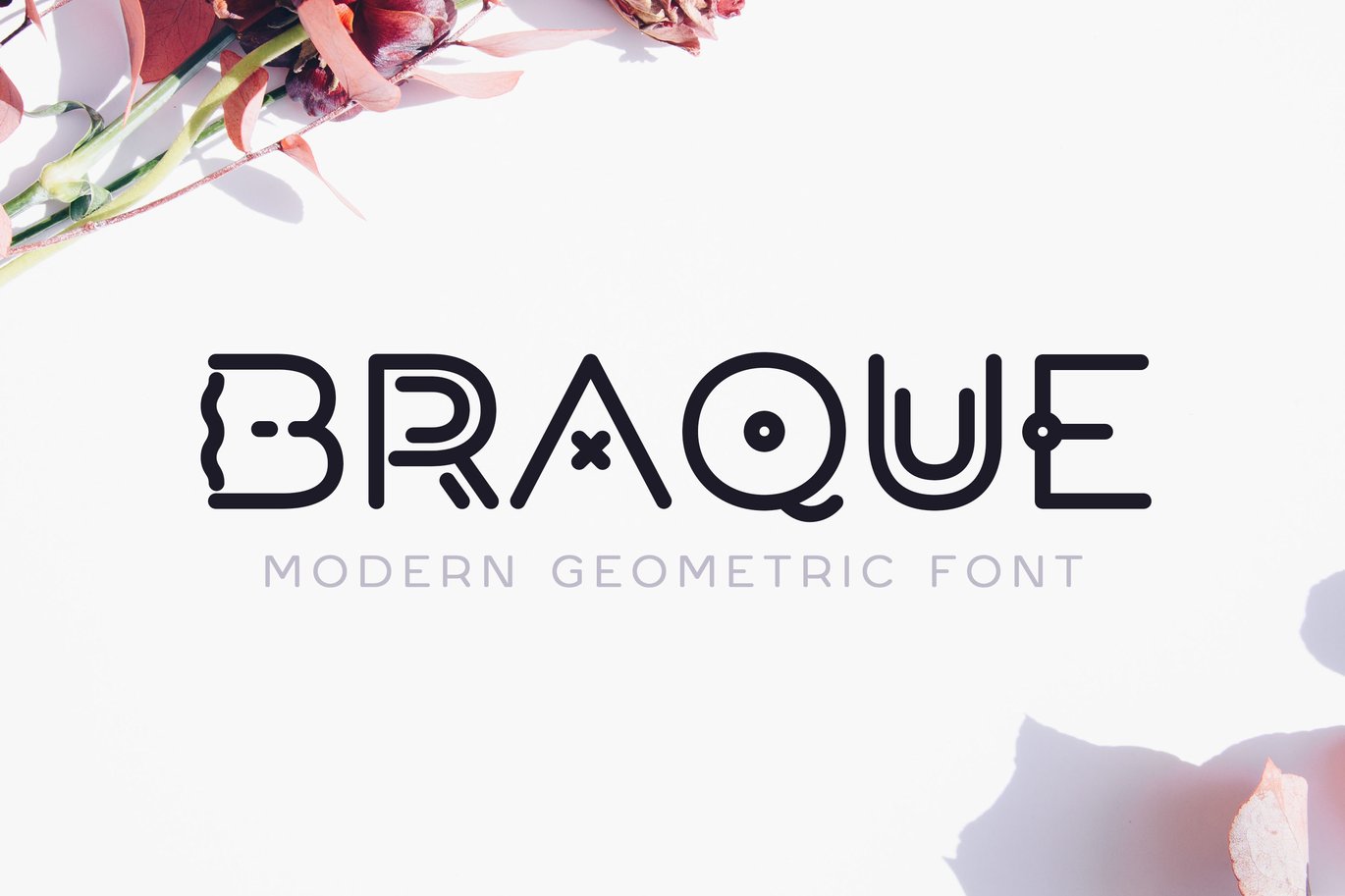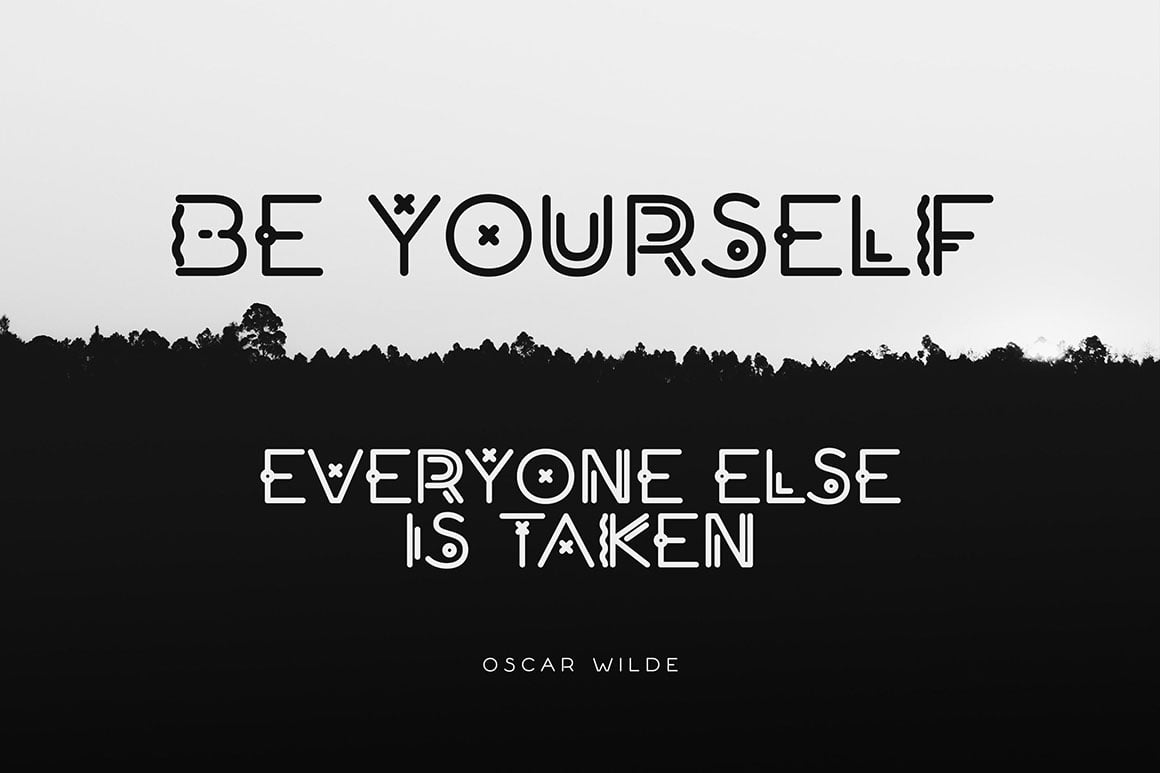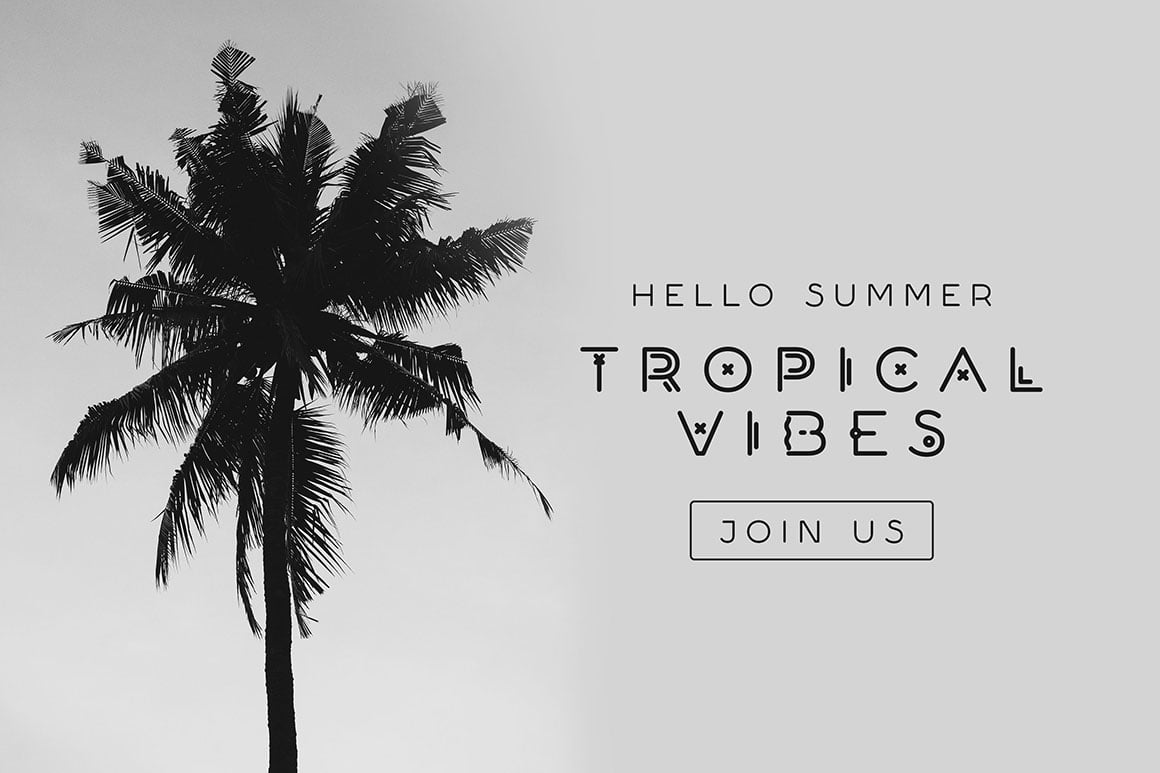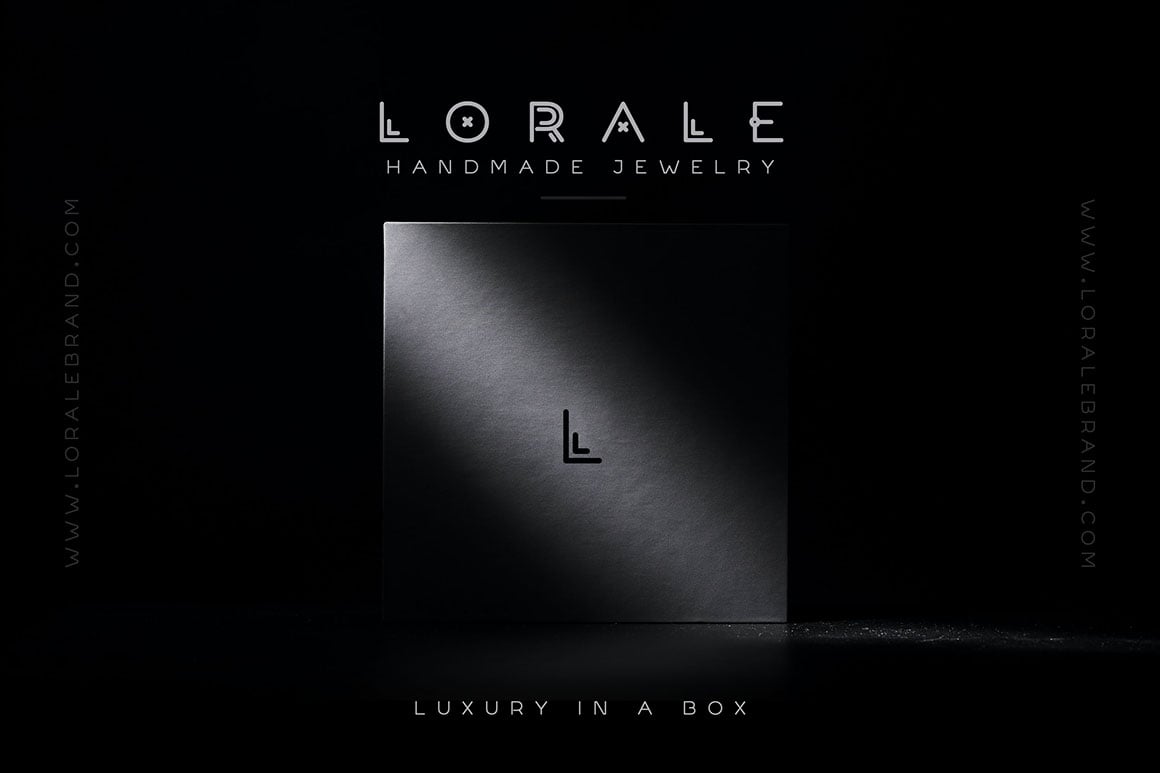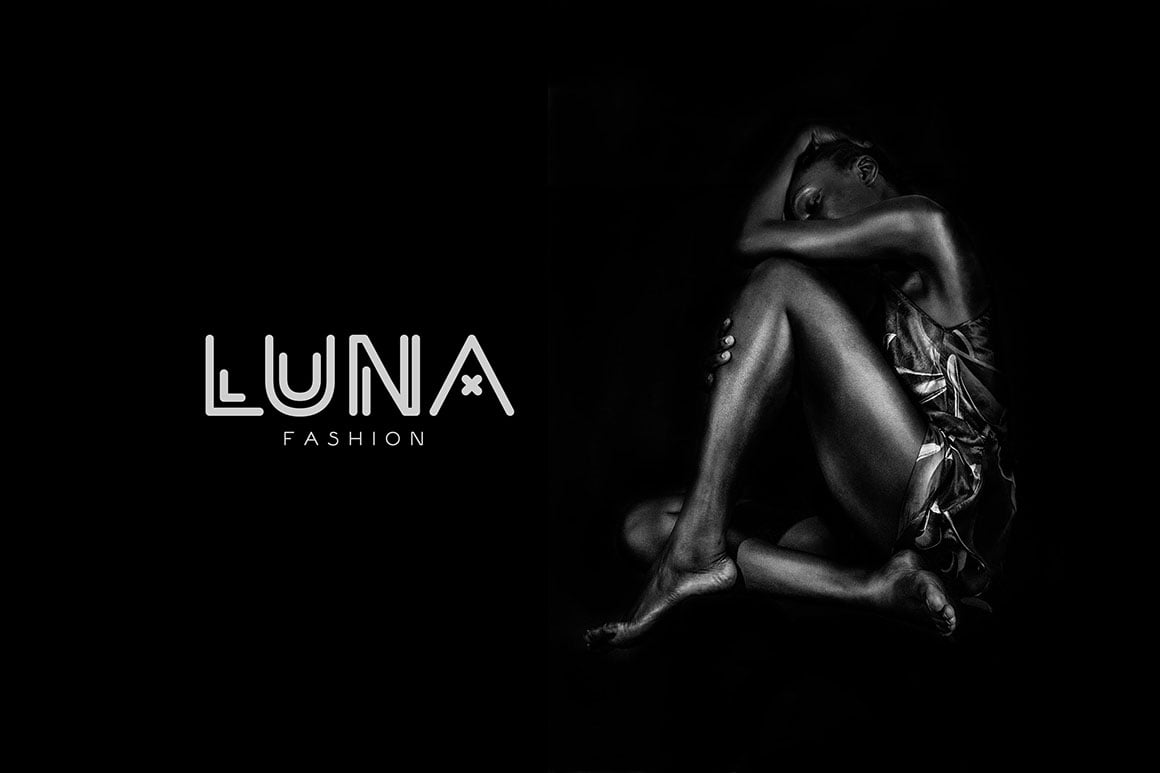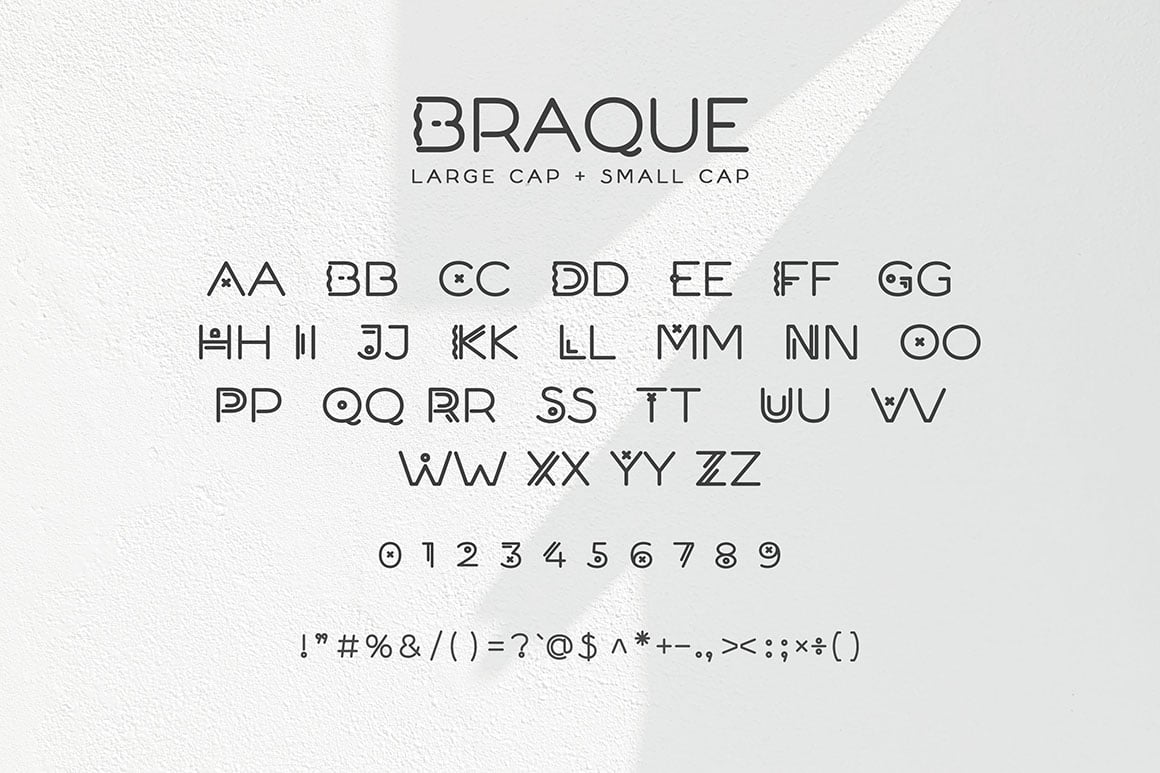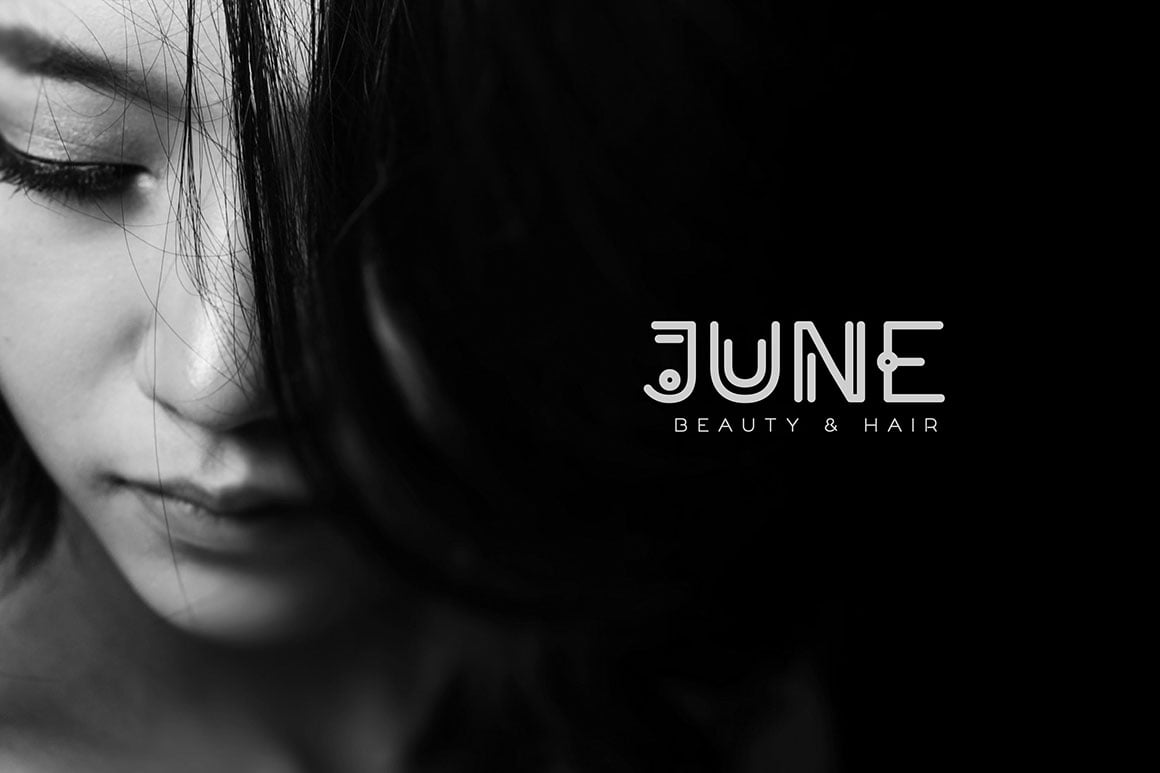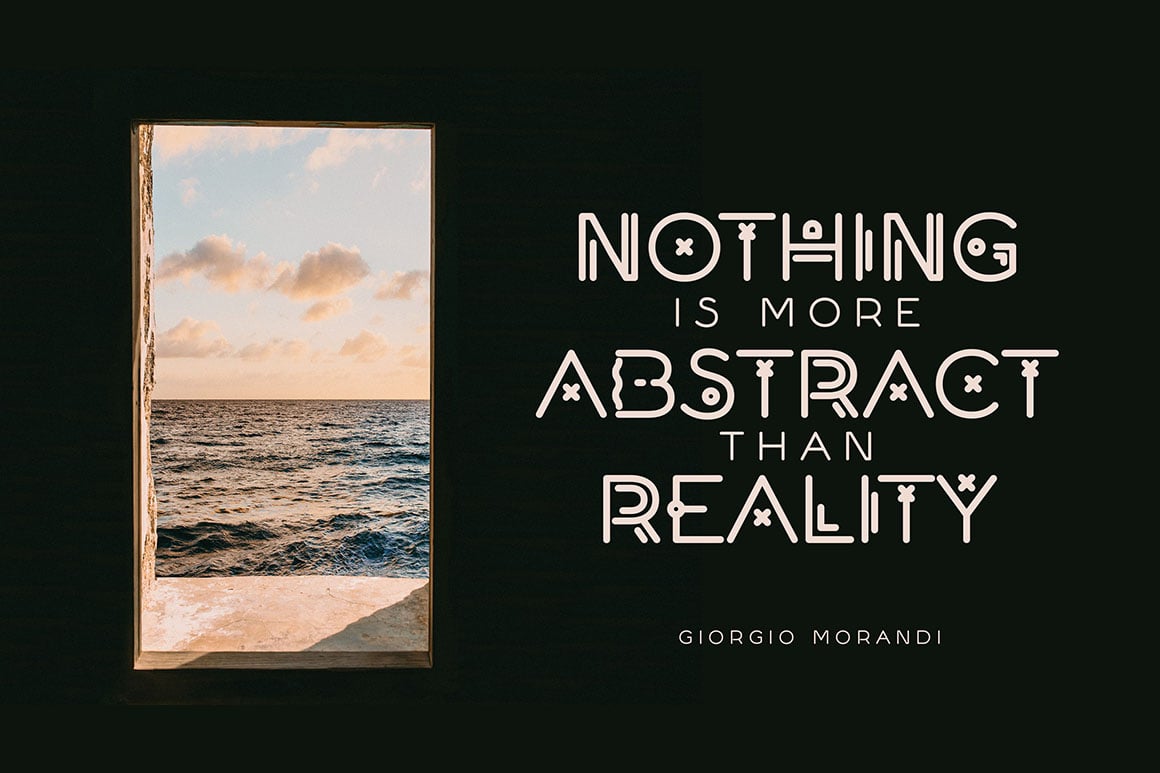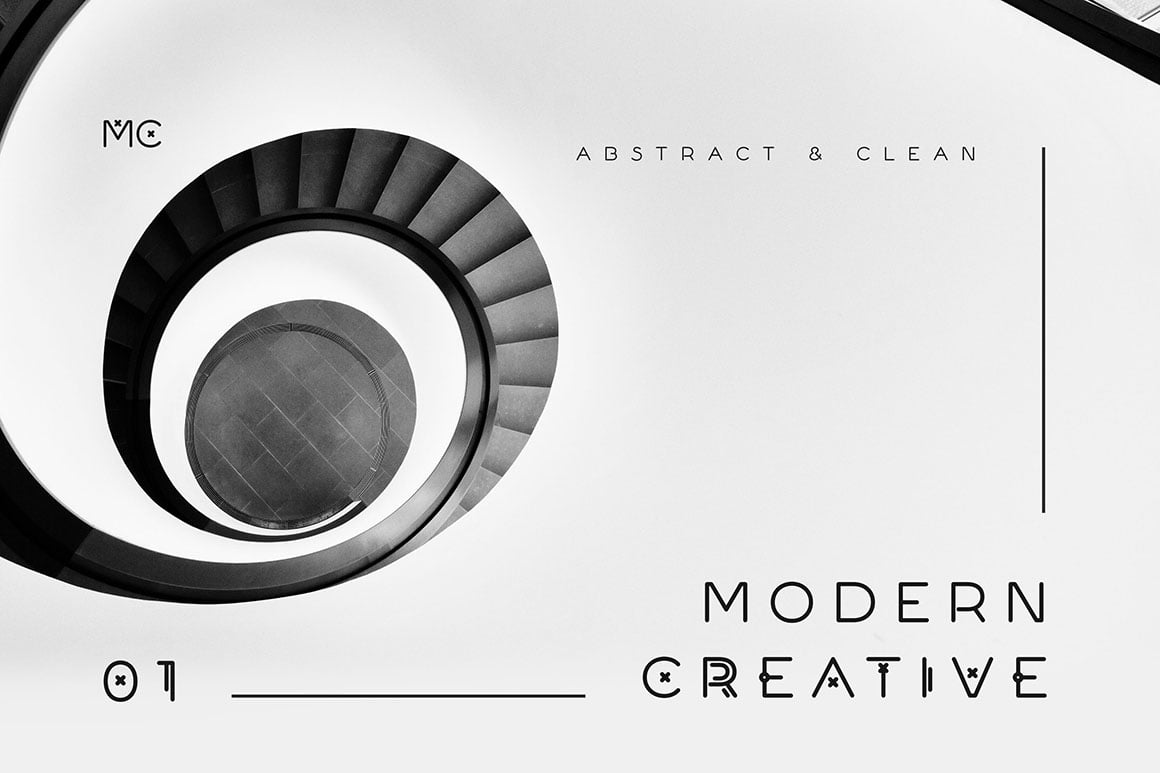
Braque – Modern Geometric Logo Font
Introducing Braque – a modern and geometric logo font with minimal vibes.
This abstract font is meant to be used for headlines, titles, logos, posters, flyers, etc – anything that requires a unique geometric typeface with modern vibes.
The font comes with a basic set of latin characters in uppercase and lowercase in addition to special glyphs.